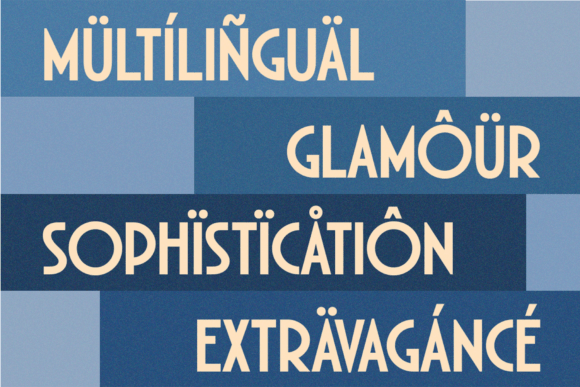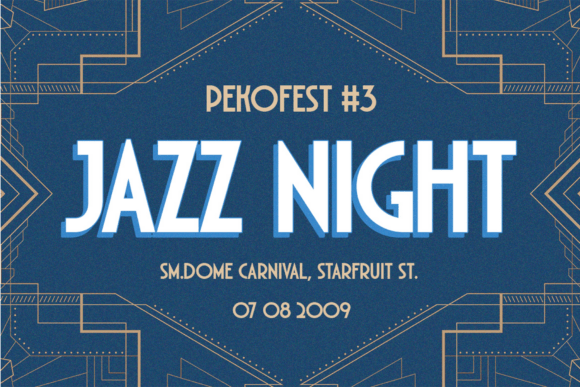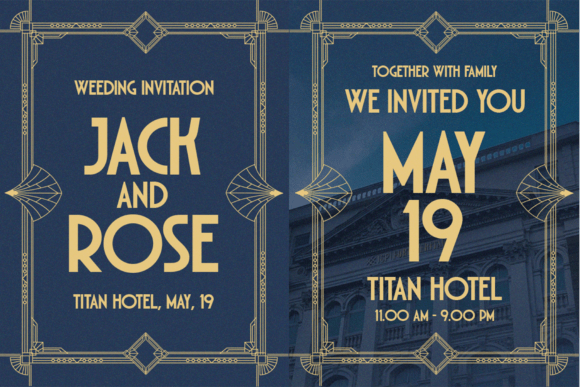
Introducing Decort: The Ultimate Art Deco Display Font
Imagine you’re working on a project, pouring your heart and soul into every detail, and then you hit a roadblock: finding the perfect font. I recall a particularly frustrating experience when I was designing a luxury brand’s logo. The client wanted something that screamed elegance, sophistication, and timeless glamour. That’s when I stumbled upon Decort, a stunning Art Deco-inspired display font that instantly elevated my design game.
The Decort Difference: Luxury, Sophistication, and Timeless Elegance
Decort is more than just a font; it’s a statement piece. Designed to capture the dazzling energy of the roaring 1920s, Decort combines bold geometric shapes with refined symmetry, making it perfect for creating striking visuals that exude confidence and class. Whether you’re a designer, crafter, or creative hobbyist, Decort instantly elevates any design with its glamorous touch and vintage charm.
What I Love About Decort ✨
- ✅ Multilingual support: Decort supports multiple languages, making it an excellent choice for global brands or projects with diverse audiences.
- ✅ All-caps structure: Its all-caps design ensures that your text always looks bold, elegant, and eye-catching.
- ✅ OpenType features: Decort comes with a range of OpenType features, including stylistic alternates, ligatures, and glyphs, giving you maximum creative control.
- ✅ Versatility: From branding and logos to invitations, packaging, posters, and event titles, Decort is an incredibly versatile font.
While Decort is an exceptional font, there are a few minor quirks to be aware of:
- 🤔 Glyph limitations: Some users have noted that the glyph set could be more extensive. However, the existing glyphs are well-designed and versatile.
- ⚠️ Not ideal for body text: Due to its bold and decorative nature, Decort is best suited for headlines, titles, and short text snippets, rather than lengthy body text.
Decort’s OpenType features are where the magic happens. With stylistic alternates, ligatures, and glyphs at your disposal, you can customize your text to fit your design vision. For example, you can use ligatures to create elegant connections between letters or swap out glyphs for unique stylistic touches.
The Story Behind Decort: Designer Inspiration
Decort was designed with the opulence of the Roaring Twenties in mind. The designer, inspired by the era’s glamour and sophistication, sought to create a font that embodied the luxury and elegance of the time. With its bold geometric shapes and refined symmetry, Decort brings the art of typography to life, telling a story of art, luxury, and sophistication with every letter.
Q: What makes Decort suitable for luxury brands?
A: Decort’s Art Deco-inspired design, bold geometric shapes, and refined symmetry evoke a sense of luxury, sophistication, and timeless elegance, making it perfect for high-end brands.
Q: Can I use Decort for both digital and print designs?
A: Absolutely! Decort’s versatility makes it suitable for a wide range of applications, from digital designs like social media graphics and websites to print materials like brochures, posters, and business cards.
Q: Does Decort support non-English languages?
A: Yes, Decort offers multilingual support, making it an excellent choice for global brands or projects with diverse audiences.
Q: Can I use Decort for body text or is it better suited for headings?
A: While Decort is an exceptional font, its bold and decorative nature makes it better suited for headings, titles, and short text snippets. For body text, a more traditional font may be more readable.